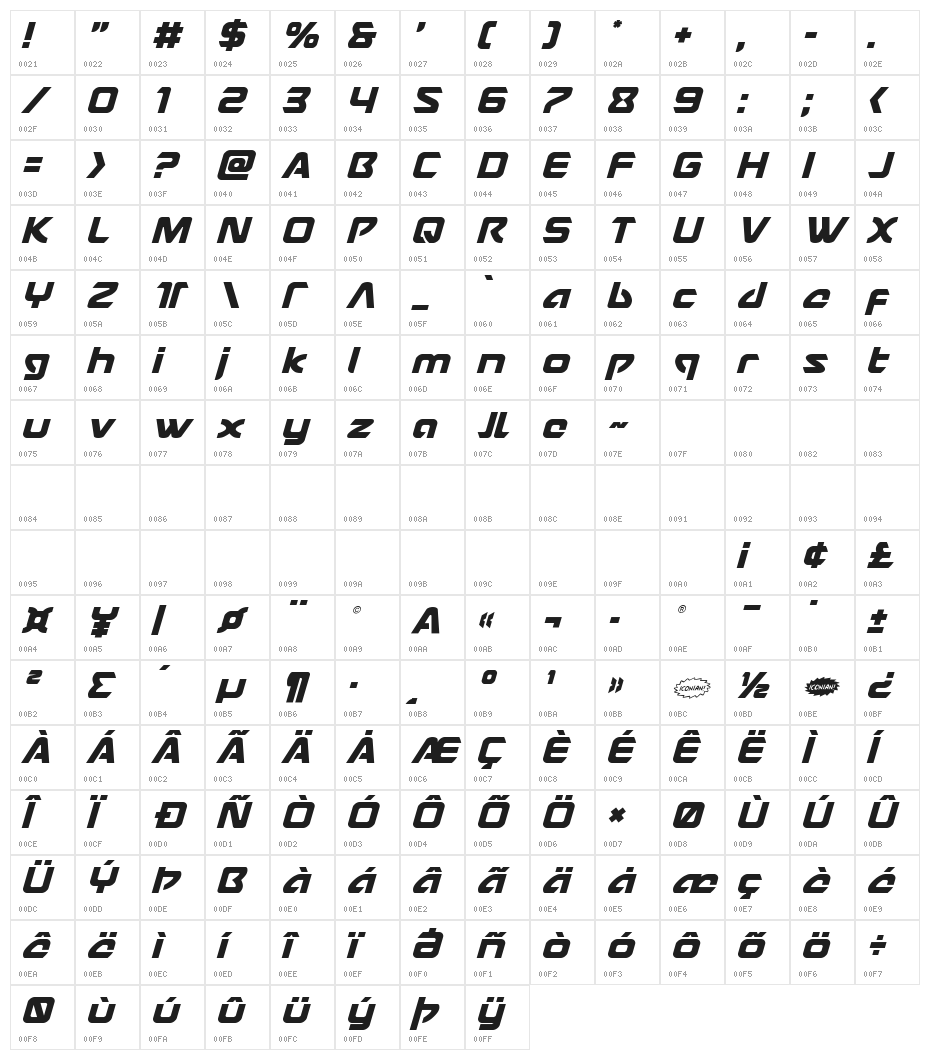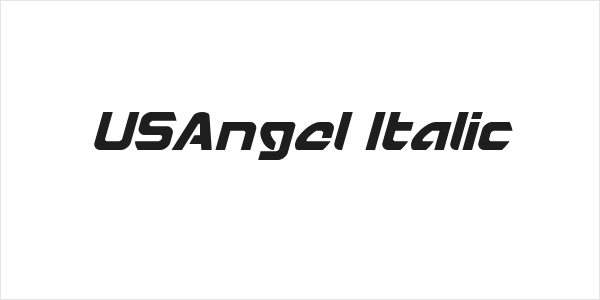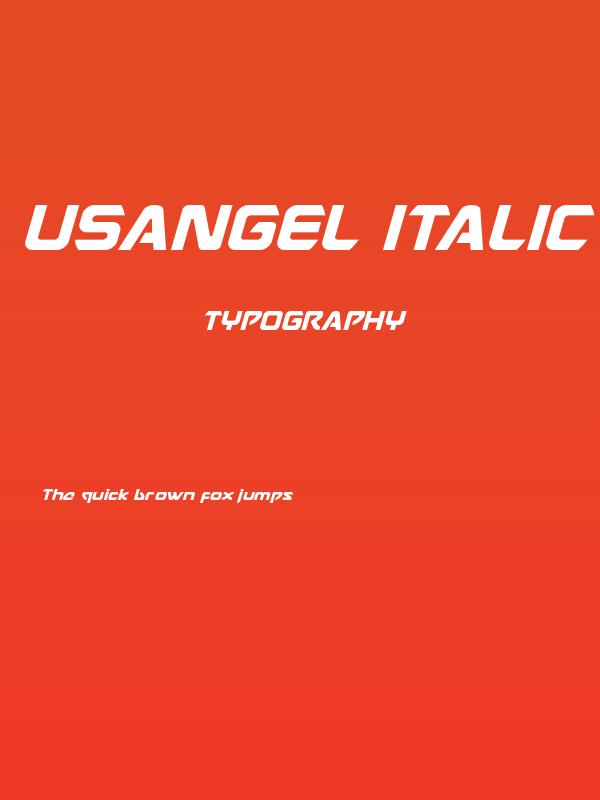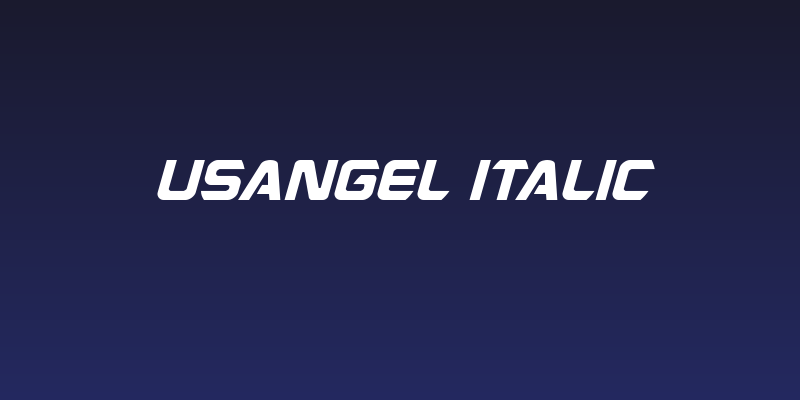
USAngel Italic Font
USAngel Italic Description
This font features a dynamic and modern italic style with a strong geometric influence. The characters are slanted, giving a sense of motion and speed, which is enhanced by the angular cuts and sharp edges. The uppercase and lowercase letters maintain a consistent style, with a bold presence that makes them stand out. The numerals and special characters follow the same design principles, ensuring uniformity across the font. The overall appearance is sleek and futuristic, making it suitable for projects that require a contemporary and energetic look.
| Proposed Projects | Ideal for sports branding, automotive designs, tech-related projects, and dynamic advertising campaigns. |